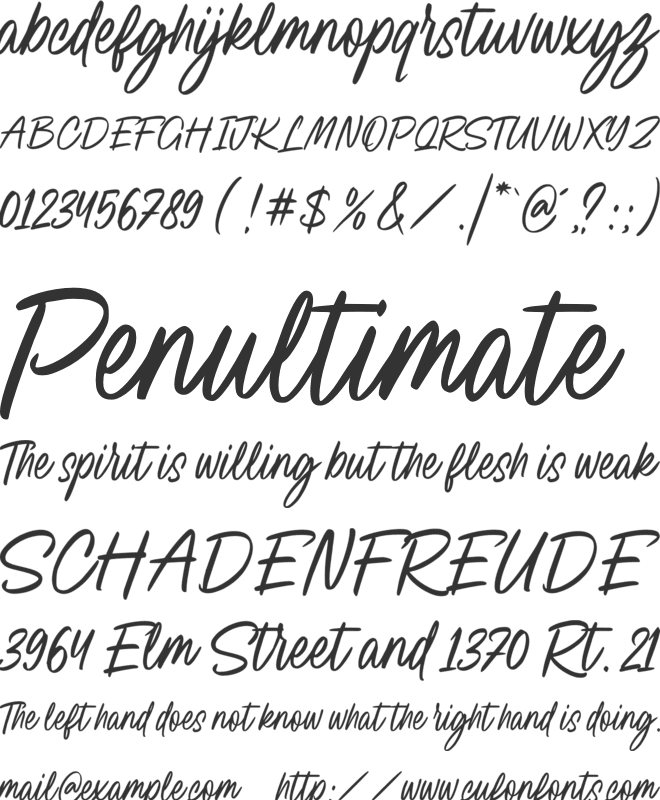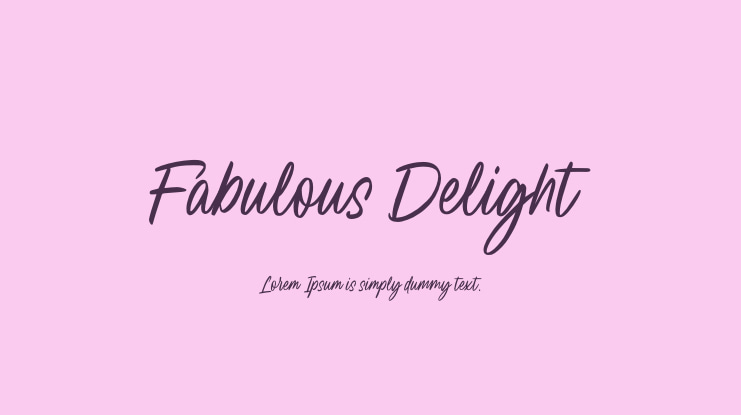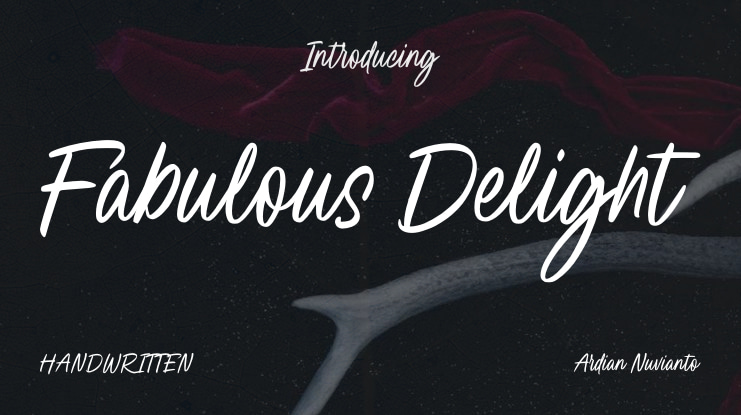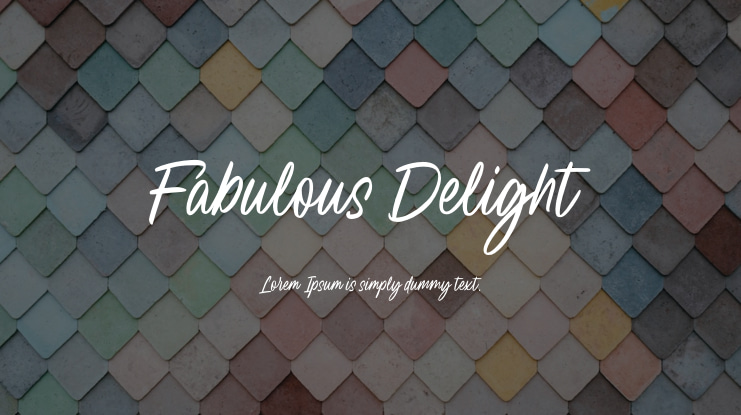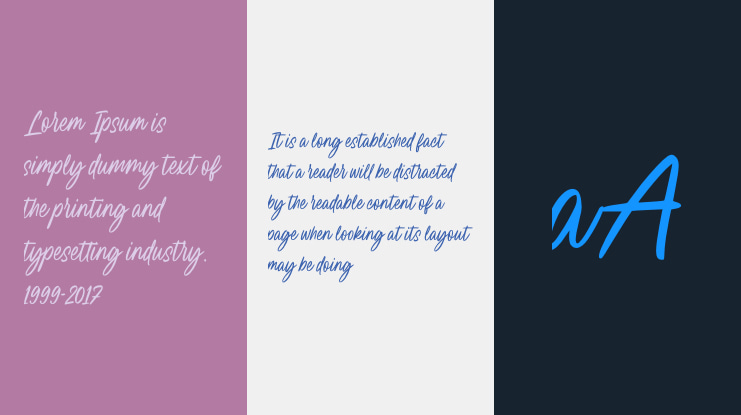
Fabulous Delight Font
Dive into the captivating charm of Fabulous Delight, a handcrafted script font filled with charisma and allure. With its whimsical strokes and graceful letters, this font adds a touch of joy and elegance to your designs. Inspired by the natural beauty of handwritten art, Fabulous Delight strikes a perfect balance between youthful energy and stylish sophistication. Perfect for projects that aim to combine playfulness with sophistication, this font is your ideal choice.